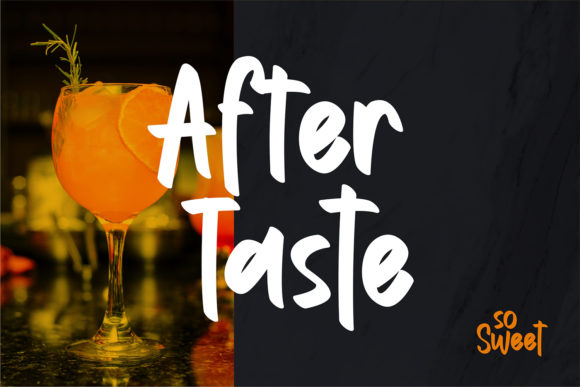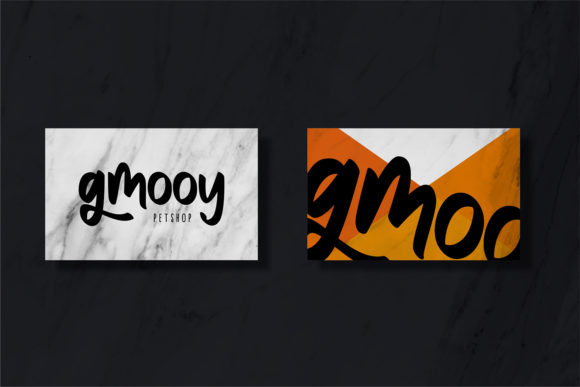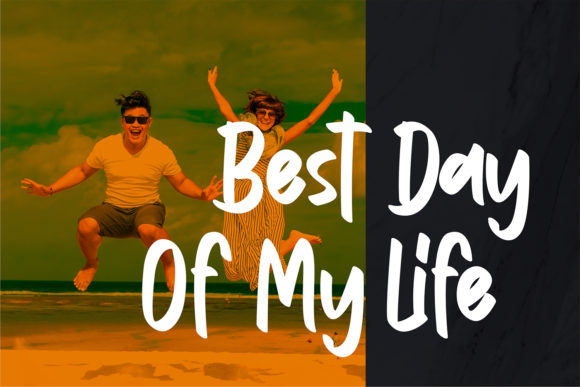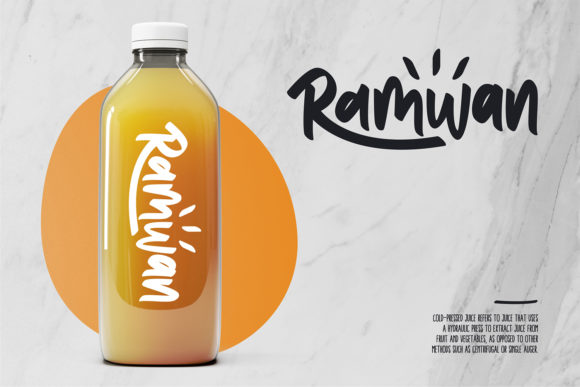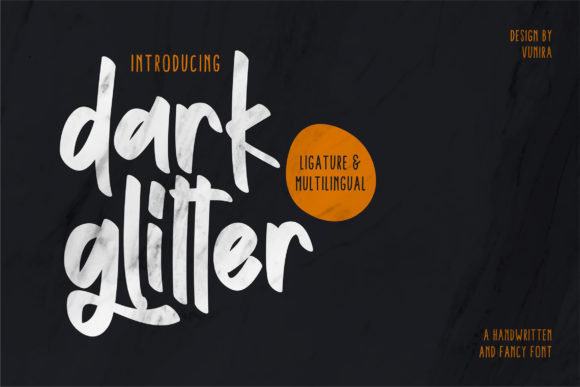
Introducing Dark Glitter Font: Add a Touch of Sparkle to Your Designs
Are you looking for a font that can add a dash of personality and whimsy to your designs? Look no further than Dark Glitter Font, a sweet and friendly handwritten font that’s perfect for a wide range of creative projects. With its natural and unique style, Dark Glitter is incredibly versatile and can be used to create stunning designs that showcase your imagination.
The Charm of Dark Glitter Font
Dark Glitter Font is a beautifully crafted handwritten font that’s designed to add a touch of sparkle to your designs. Its sweet and friendly style makes it perfect for projects that require a personal and approachable feel. Whether you’re creating invitations, greeting cards, or social media graphics, Dark Glitter Font is sure to make your designs stand out.
Unique and Natural Style
One of the standout features of Dark Glitter Font is its unique and natural style. The font has a distinctly handwritten feel that’s both authentic and charming. The letters are carefully crafted to have a sense of movement and fluidity, giving the font a dynamic and playful feel. This makes Dark Glitter Font perfect for designs that require a personal touch, such as handmade crafts, DIY projects, or boutique-style branding.
The beauty of Dark Glitter Font lies in its versatility. The font can be used for a wide range of designs, from sweet and sentimental projects to bold and statement-making creations. Here are just a few ideas to get you started:
- Create stunning invitations for special occasions, such as weddings, birthday parties, or baby showers.
- Design beautiful greeting cards for holidays, birthdays, or get-well wishes.
- Develop a cohesive brand identity for your small business or personal blog.
- Make eye-catching social media graphics that showcase your personality and style.
- Design gorgeous handmade crafts, such as scrapbook pages, journal entries, or DIY decorations.
Tips for Using Dark Glitter Font
To get the most out of Dark Glitter Font, here are a few tips to keep in mind:
- Pair Dark Glitter Font with other fonts to create a unique and visually appealing combination.
- Use the font to create a sense of hierarchy and visual flow in your designs.
- Don’t be afraid to get creative and try out new and innovative design ideas!
In conclusion, Dark Glitter Font is a sweet and friendly handwritten font that’s perfect for designers and crafters looking to add a touch of sparkle to their designs. With its natural and unique style, Dark Glitter is incredibly versatile and can be used for a wide range of creative projects. Whether you’re creating invitations, greeting cards, or social media graphics, Dark Glitter Font is sure to make your designs stand out. So why wait? Download Dark Glitter Font today and let your imagination shine!
Key Features of Dark Glitter Font
- Sweet and friendly handwritten font
- Natural and unique style
- Incredibly versatile and adaptable
- Perfect for a wide range of creative projects
- Handwritten feel with a sense of movement and fluidity